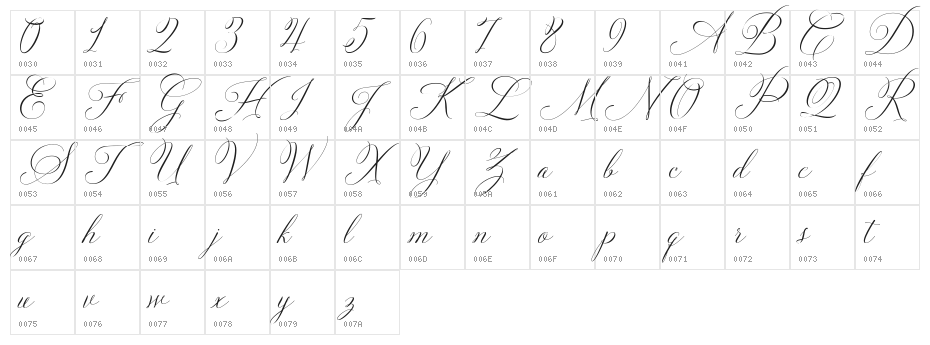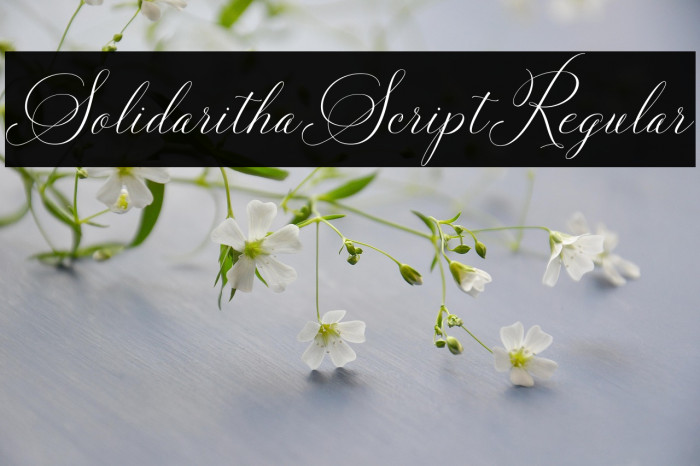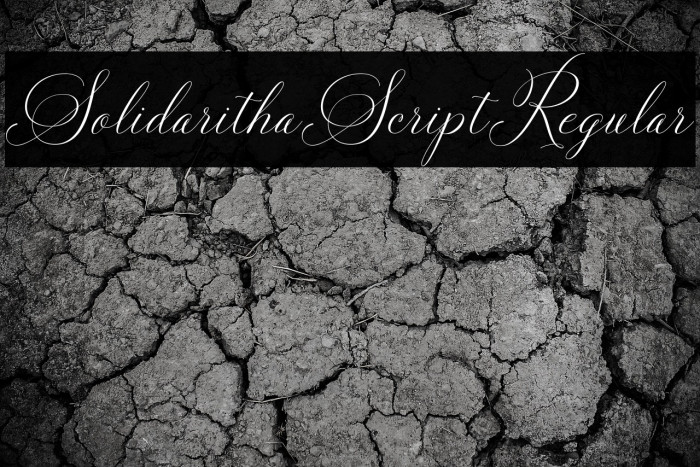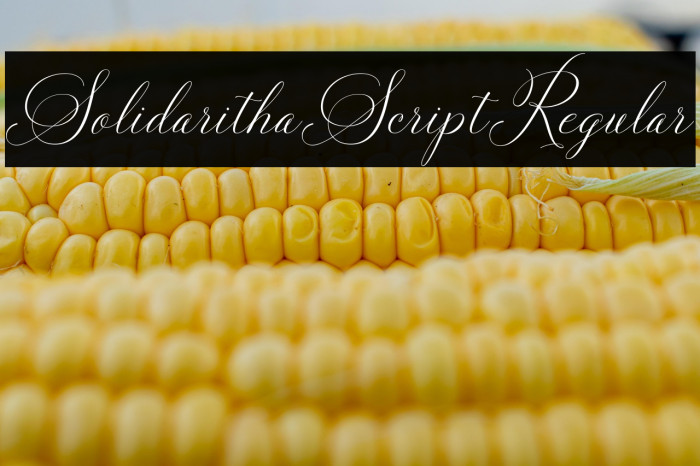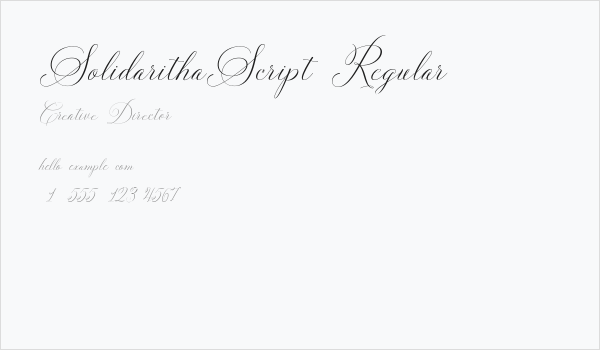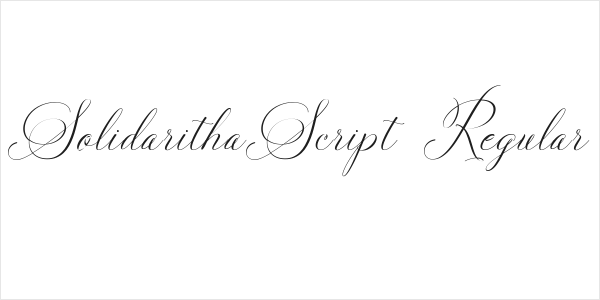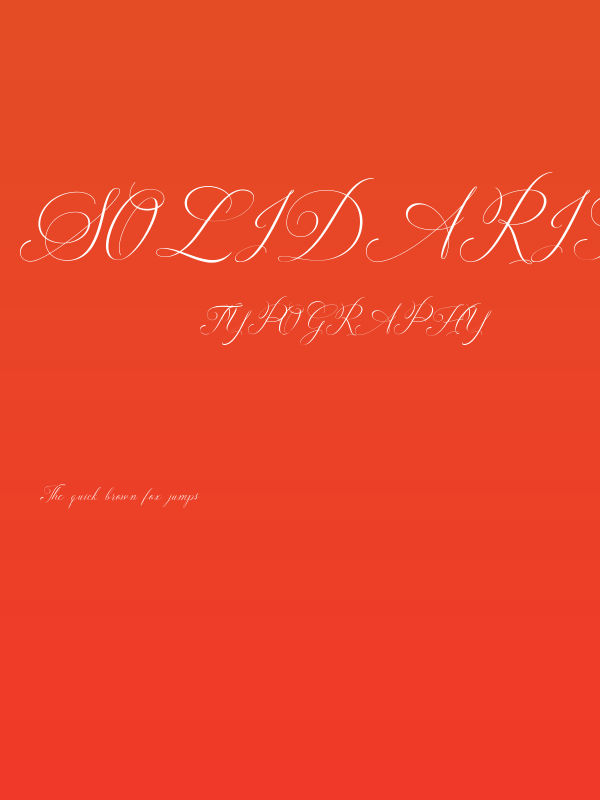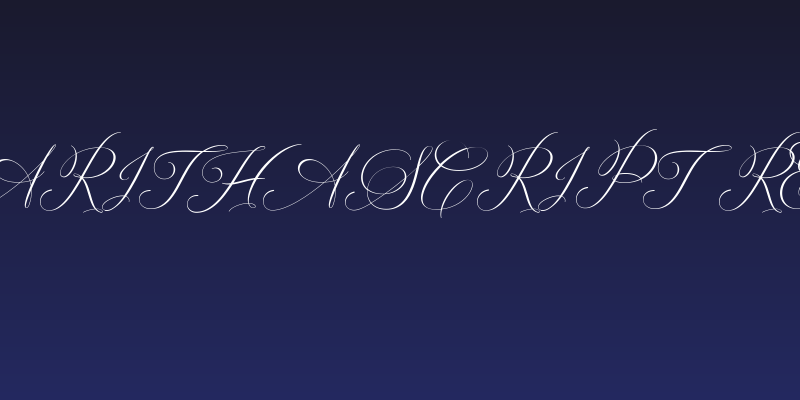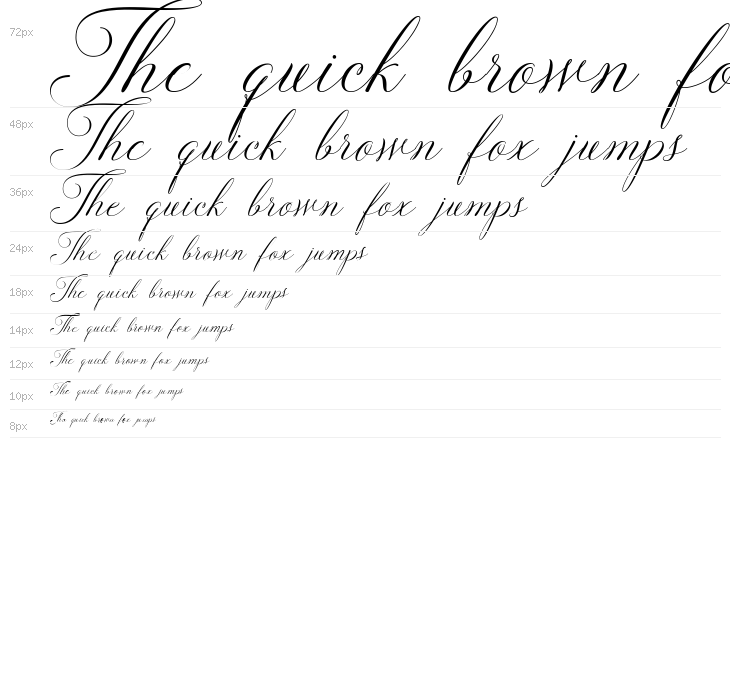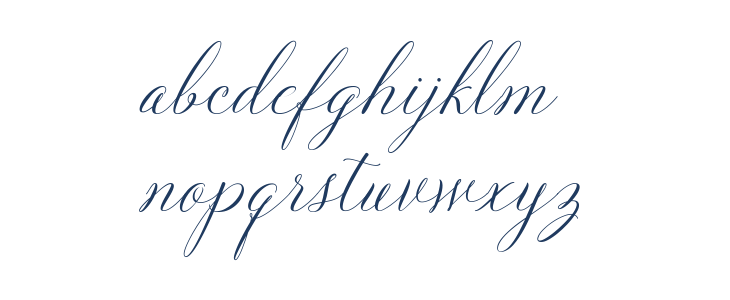
SolidarithaScript-Regular Font
| Caso d'uso | Logos, Invitations, Greeting Cards |
| Progetti proposti | Ideal for wedding invitations, elegant branding, greeting cards, and artistic projects. |